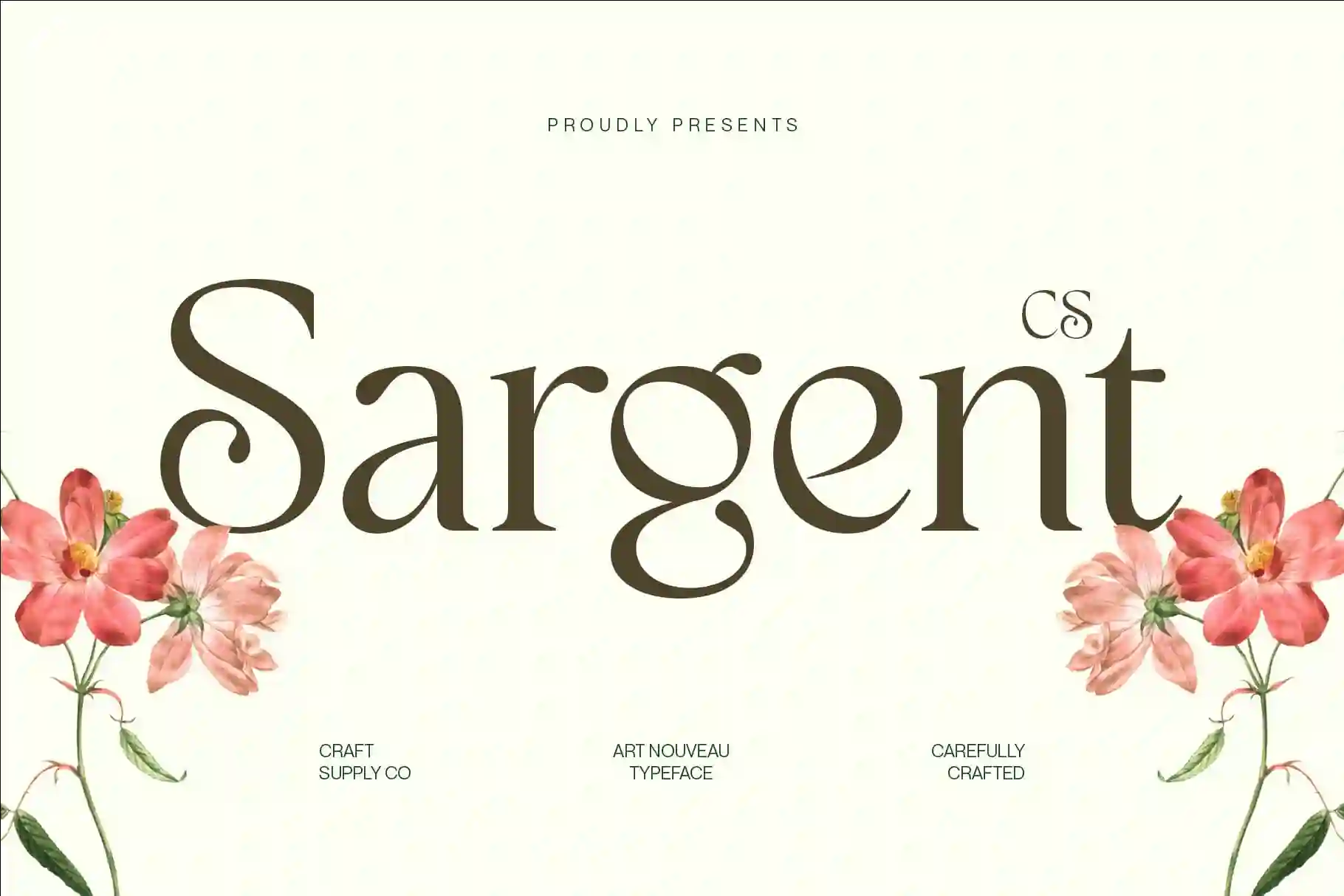
CS Sargent – Art Nouveau Elegant Serif with Flowing Beauty
Refined Art Nouveau Style
CS Sargent draws inspiration from the timeless beauty of Art Nouveau, featuring graceful curves and delicate lines that echo organic forms. Its artistic shapes capture the elegance of the era while giving modern designers a font that feels both classic and stylish.
Handmade Artistic Character
Enhanced with a subtle drawn, handmade touch, CS Sargent carries a unique charm that sets it apart from traditional serif fonts. Each detail feels carefully crafted, offering a balance of refinement and artistic individuality. This handcrafted quality adds depth and authenticity to any design.